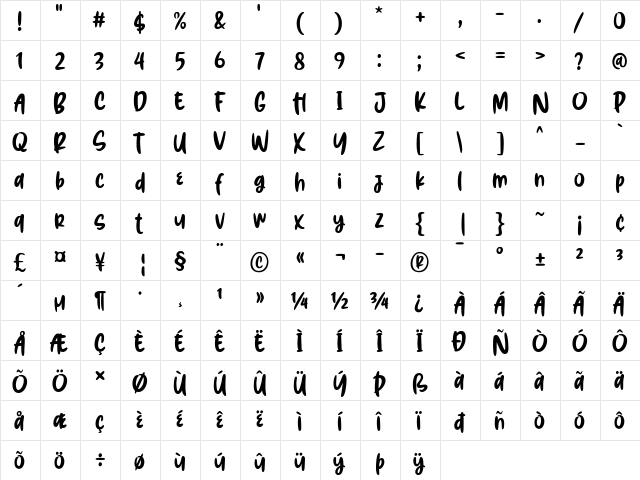
Brush Hours Regular
| Foundry | 7NTypes |
| Designer | Situjuh Nazara |
Design Context for Brush Hours Typeface
Brush Hours flows with the natural rhythm of handwritten lettering, making it ideal for designs that call for warmth and personal expression.
Font Pairing: Combine Brush Hours with a simple geometric sans for maximum contrast — the tension between flowing curves and clean structure is a classic typographic pairing.
Pro Tip: Use Brush Hours for short runs of text — names, titles, or taglines. Extended body copy in script faces tires the eye quickly.